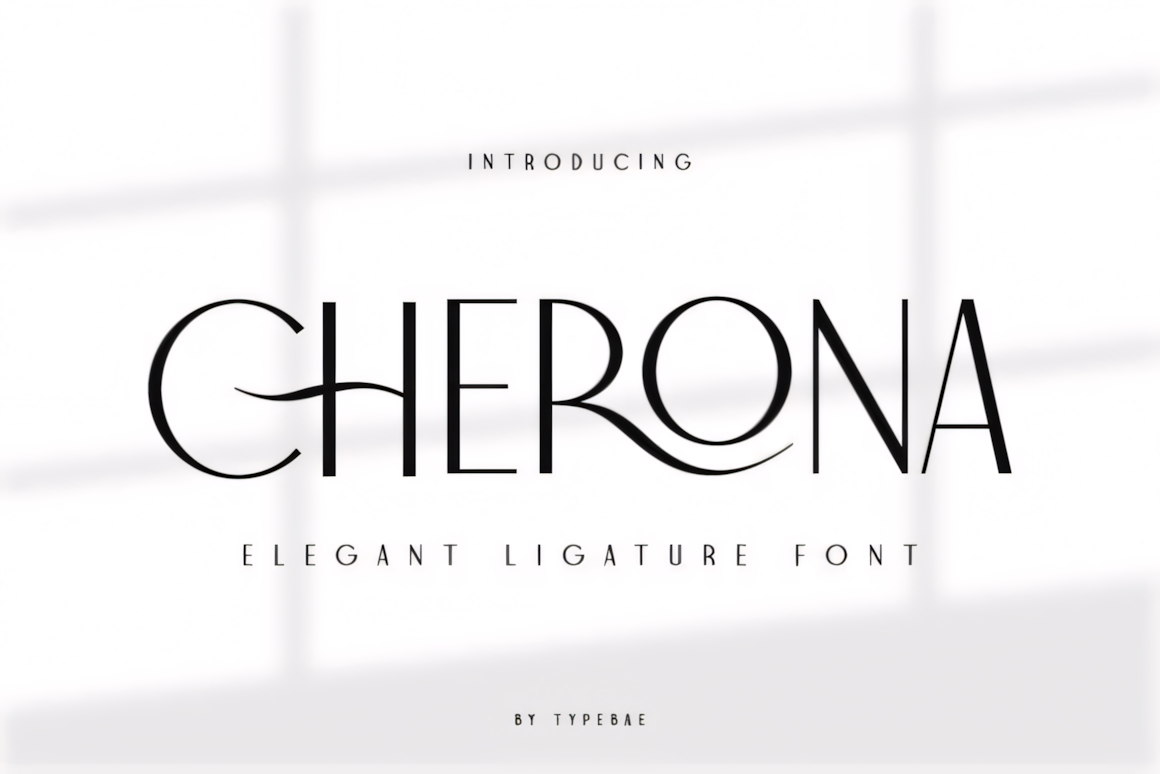
Cherona is a beautiful and refined sans serif font with distinct ligaments that make it look appealing. It indeed is a flexible typeface which can be effectively used irrespective of size whether big or small.
It is suitable for luxury logo, fashion branding, magazine, art, invitation and home design decoration, book cover designs and etc. It gives a professional touch when used in any project.
Cherona Sans Serif Font